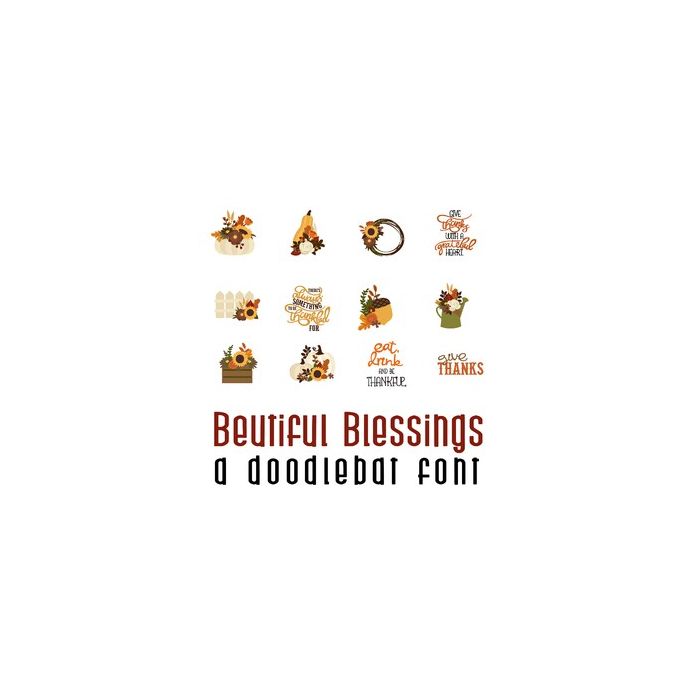
This adorable full-color doodlebat font features 26 beautiful autumn floral images. Perfect for cards, crafts, gifts, decor, scrapbook pages, planner stickers, and more!